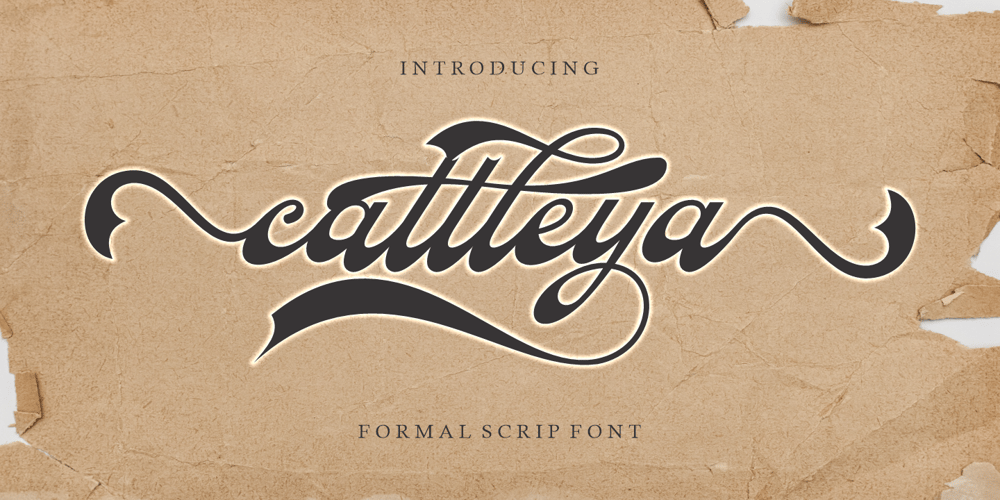
Cattleya
Cattleya font
Cattleya Font Family was designed by Afri Giani and published by Gian Studio. Cattleya contains 1 styles and family package options. Cattleya is a stylish and retro handwritten font. this font is perfect for branding, logos,wedding invites, magazines, mugs, business cards, quotes, posters, and more, you can try first if you want to buy this font.Cattleya is equipped with 412 glyphs. and by having many of these glyphs there will be able to choose the letters according to your likes, lots of variations and options for each letter, so you can customize on your design choices.to use a variety of flying machines, you need a program that supports OpenType features such as Adobe Photoshop Cs / Adobe Photoshop CC, Adobe Illustrator CS / Adobe Illustrator CC, Adobe Indesign and Corel Draw and many more programs that support OpenType.If you do not have a program that supports OpenType, you can access all the alternate glyphs using Font Book (Mac) or Character Map (Windows)Thanks and happy designing :-)Thank You for purchase!Designers: Afri GianiPublisher: Gian Studio